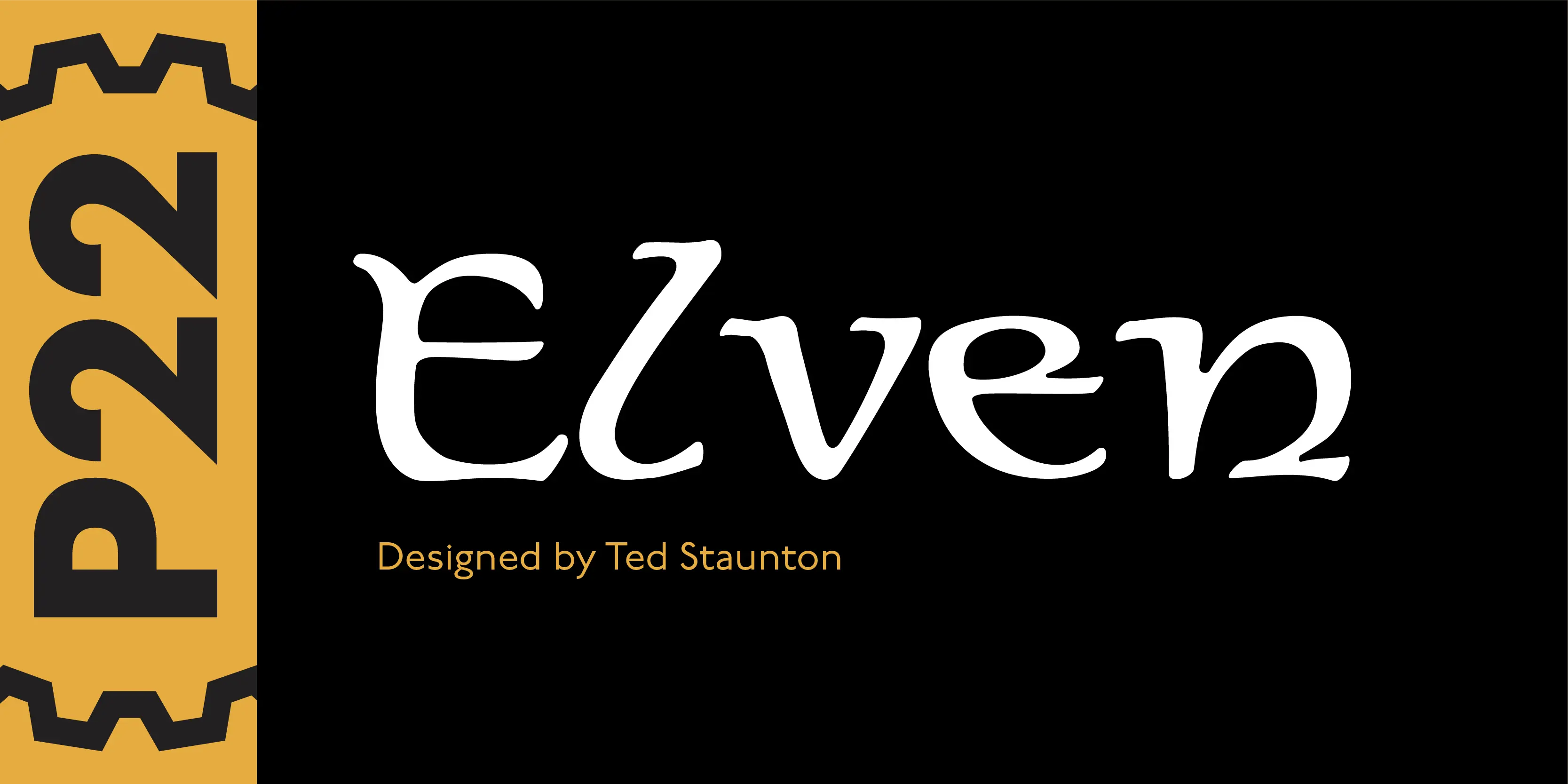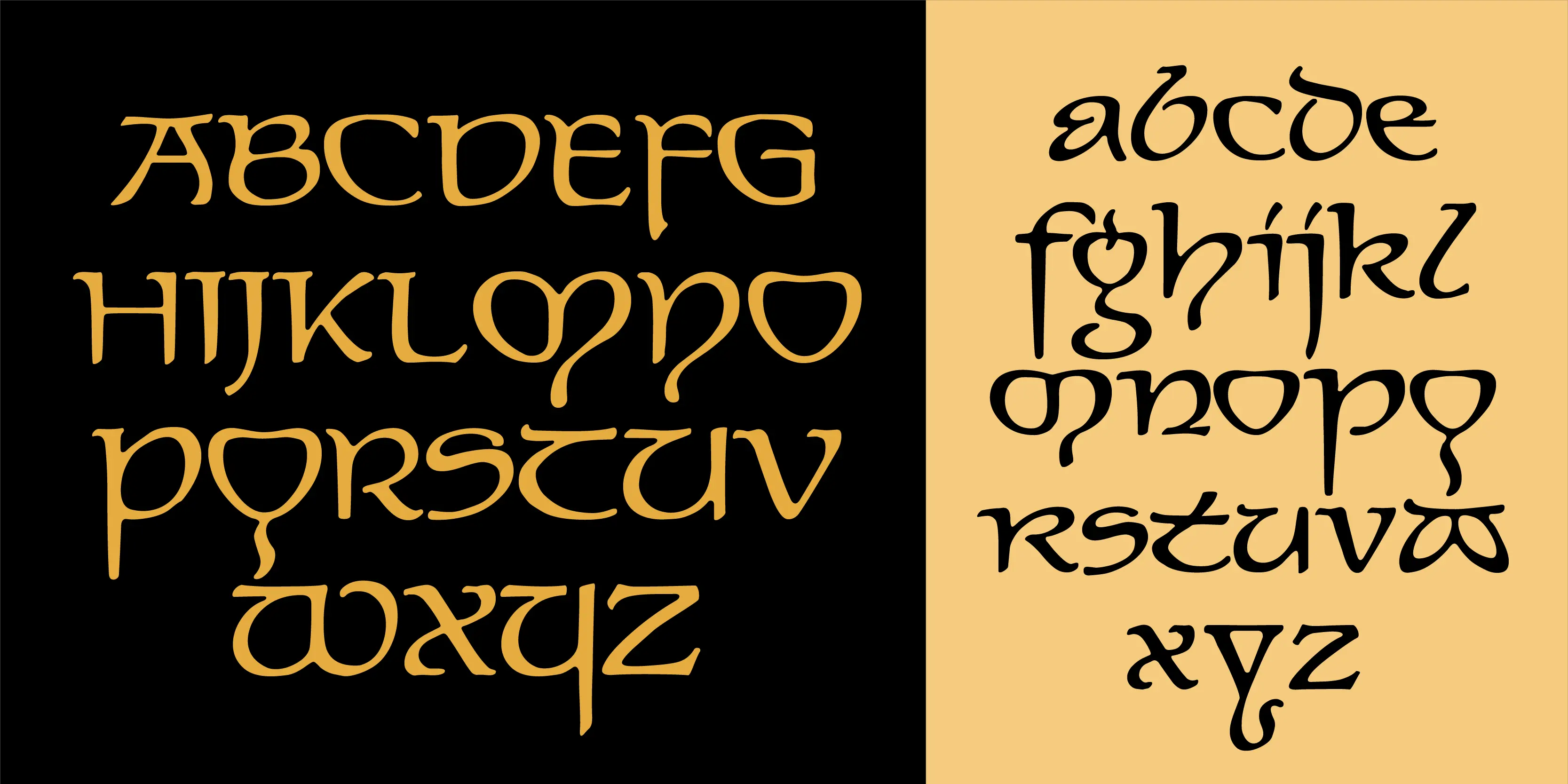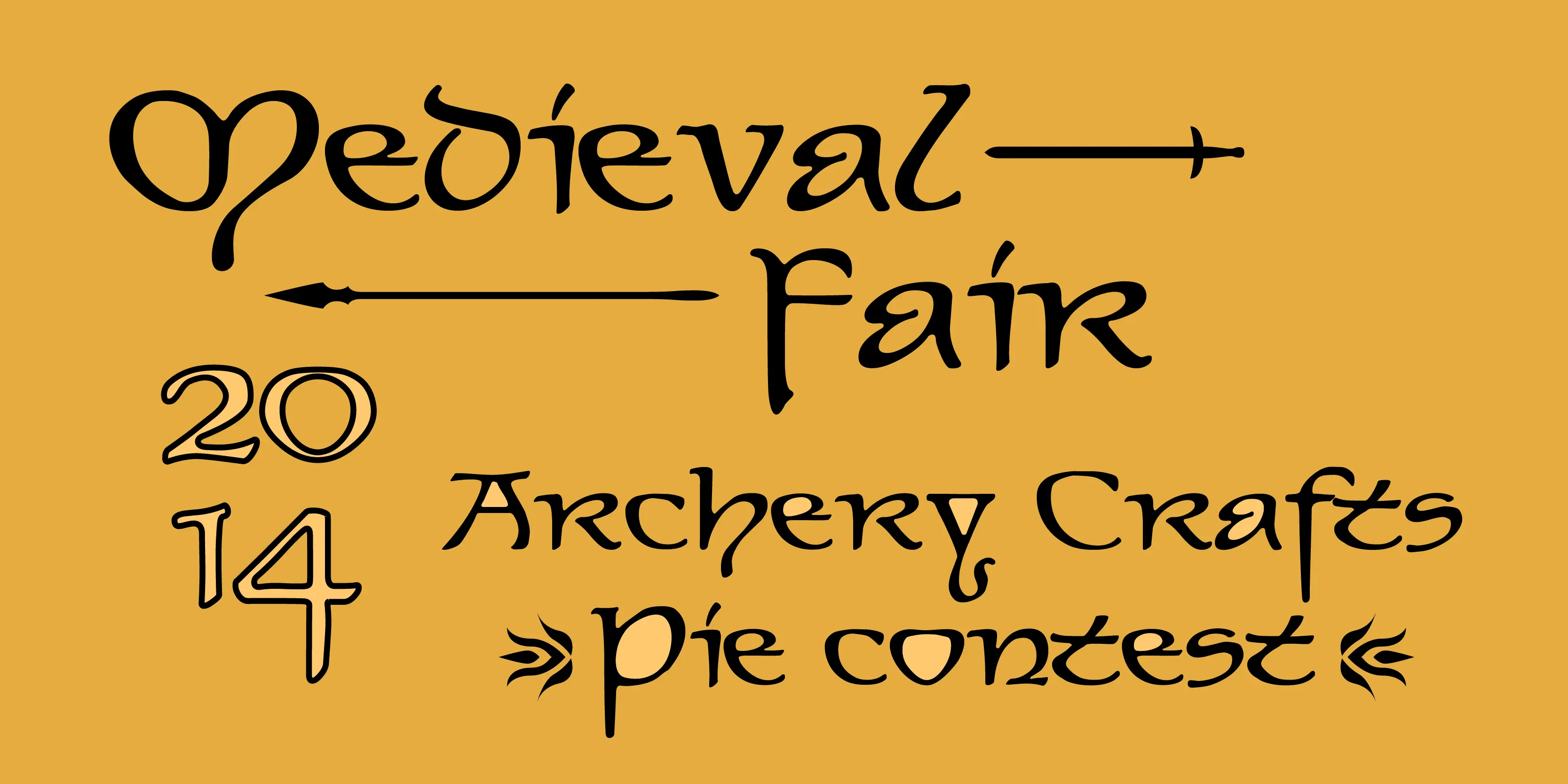
Elven Font
Elven
The rounded shapes of P22 Elven show the influence of the 10th-century Irish half-uncial. Effective for projects dealing with mystery, fantasy, or historical drama.